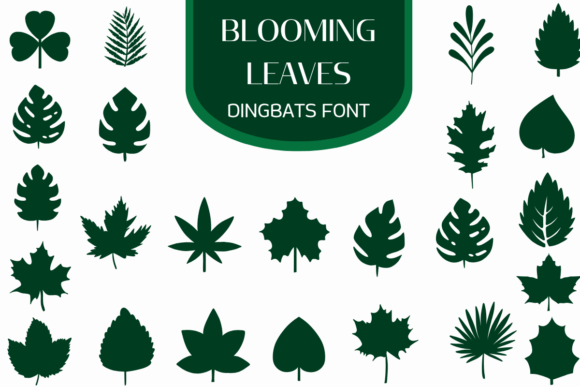
The Designer’s Delight: Blooming Leaves Font
I’ll never forget the time I was working on a project for a local nursery, and I needed a font that would capture the essence of nature. I had a vision of lush greenery and vibrant flowers, but my font choices were falling flat. That’s when I stumbled upon Blooming Leaves, a beautifully curated dingbat font that features a wide variety of leaf silhouettes. It was love at first sight! 💚
What I Love About Blooming Leaves ✨
- 🌿 The variety of leaf silhouettes is impressive, ranging from tropical monstera and palm fronds to classic maple and oak leaves.
- ✅ The crisp, vector-style glyphs are fully scalable, making them perfect for logos, stickers, nature-themed crafts, and digital assets.
- 💡 The font is incredibly versatile and can be used in eco-friendly designs, organic product packaging, seasonal projects, and educational materials.
- 🎨 The font’s natural elegance brings a touch of sophistication to every layout.
While Blooming Leaves is an amazing font, there are a few things to keep in mind:
- 🤔 The font is a dingbat font, which means it’s primarily composed of symbols and glyphs rather than traditional letters.
- ⚠️ Some users may find the font’s limited character set a bit restrictive, but this is a minor trade-off for the unique and beautiful glyphs.
The Designer’s Inspiration 🌸
Blooming Leaves was created with the intention of capturing the beauty and diversity of the natural world. The designer, a nature lover and avid botanist, wanted to create a font that would allow users to bring a touch of the outdoors into their designs. With its wide range of leaf silhouettes and crisp, vector-style glyphs, Blooming Leaves is the perfect tool for anyone looking to add a bit of natural elegance to their work.
| What type of font is Blooming Leaves? | Blooming Leaves is a dingbat font, featuring a collection of leaf silhouettes and glyphs rather than traditional letters. |